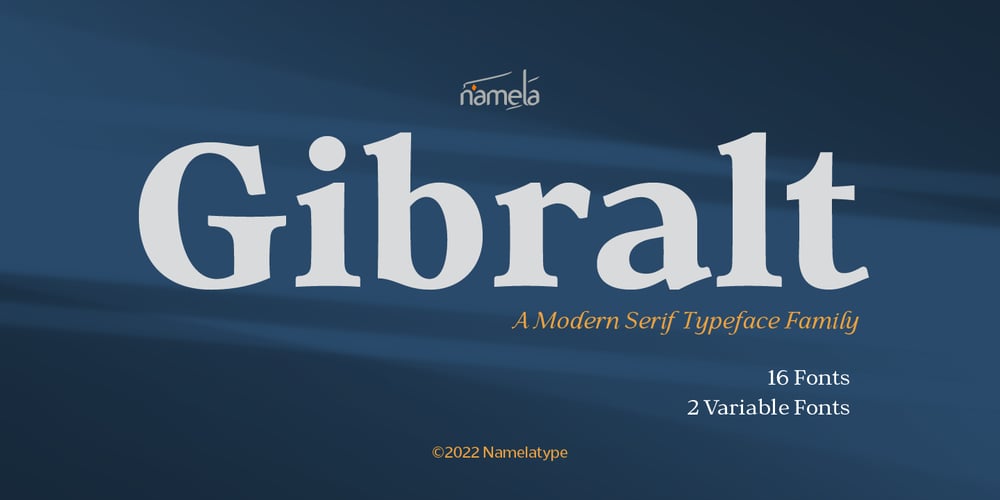
Gibralt Font Family was designed by Nur Syamsi, Bustanul Arifin and published by NamelaType. Gibralt contains 18 styles and family package options. Designed with high contrast. The stems are not completely straight, slightly narrow in the middle, combining rounded and right angle at the terminals and serif ends.Gibralt consists of 8 styles from Extra light to Black, each matching with italics version. Suitable for Headlines, paragraph, text, printing and more.